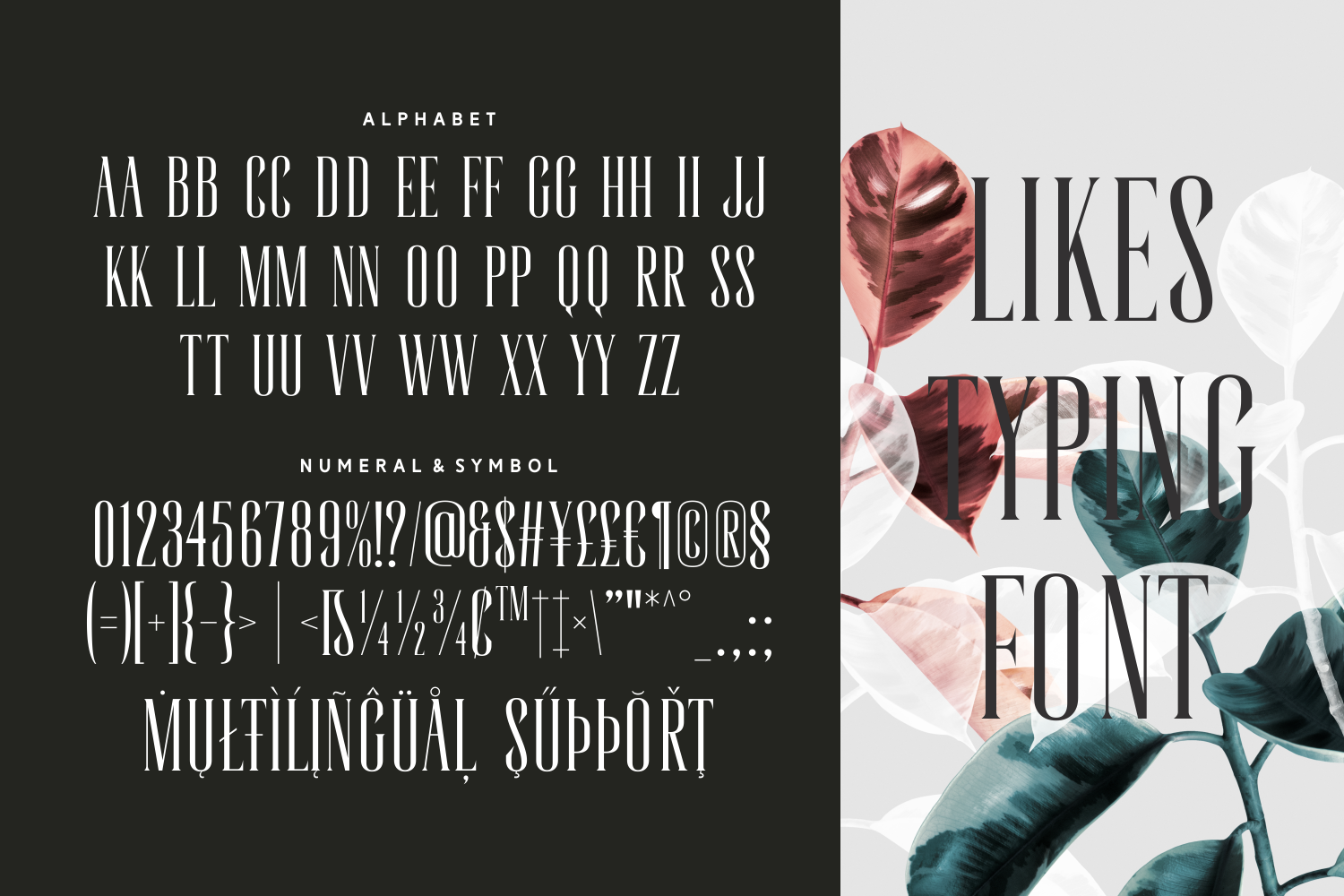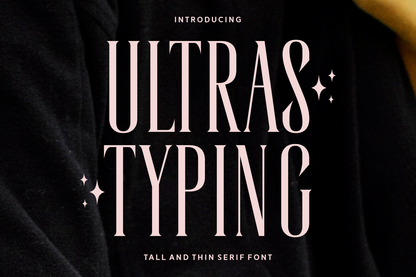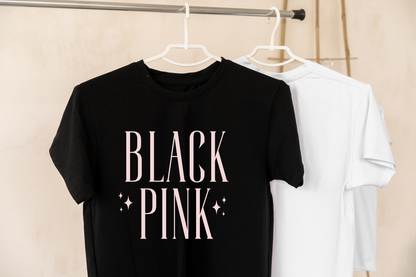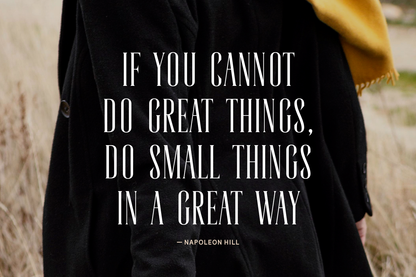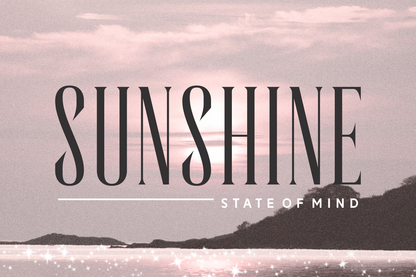
Ultras Typing is a tall, narrow serif font with elegant proportions and delicate flair. Perfect for beauty packaging, boutique branding, or editorial spreads, this typeface adds height and charm to every layout with a whimsical sparkle.